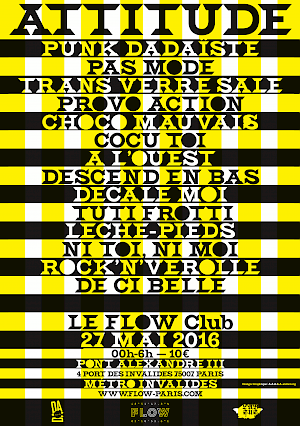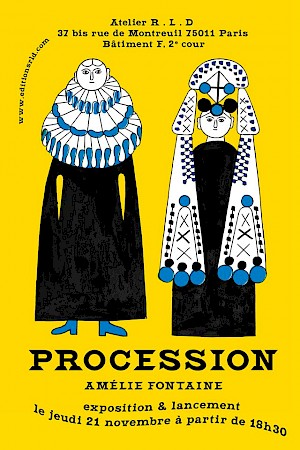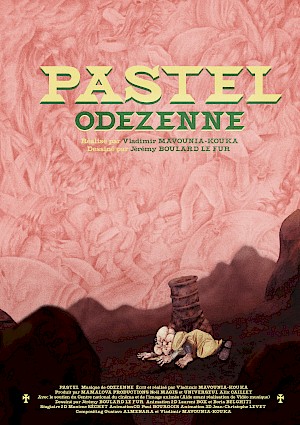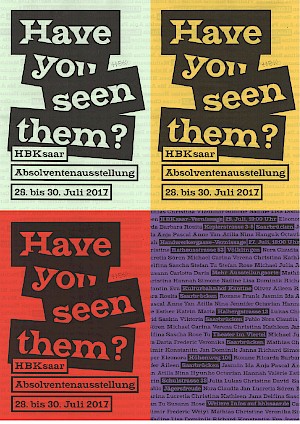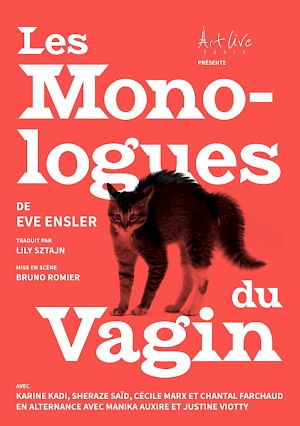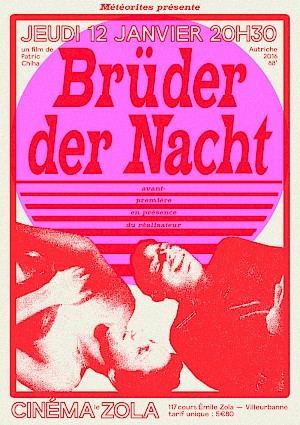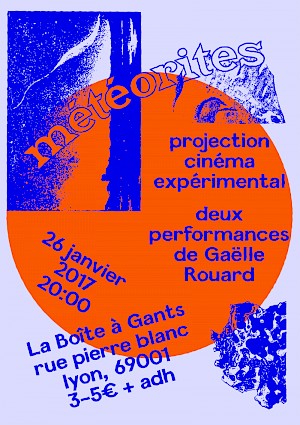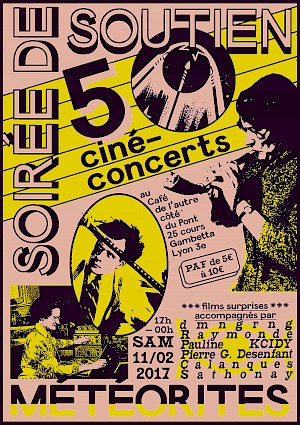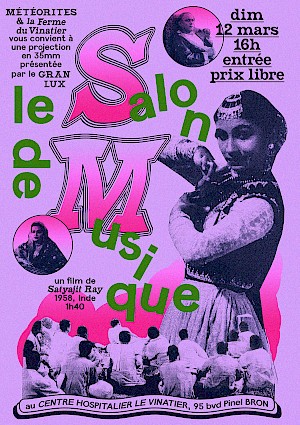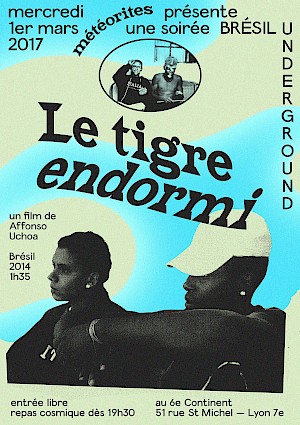
Combat
Designed by
Martin Desinde
Combat comes from an early XXth century anarchist newspaper published in Limoges, France, called "Le combat social". Only the 10 letters of the title were created for printing. 100 years later, the font exists on its own.